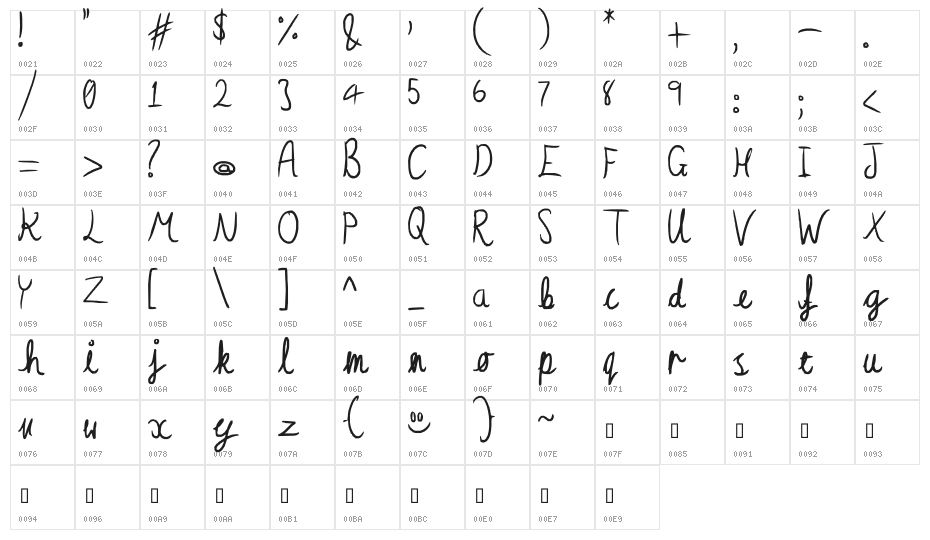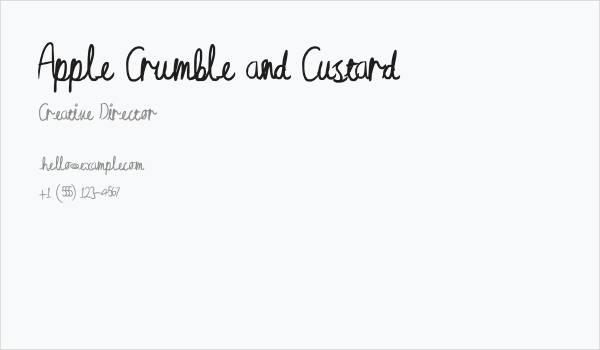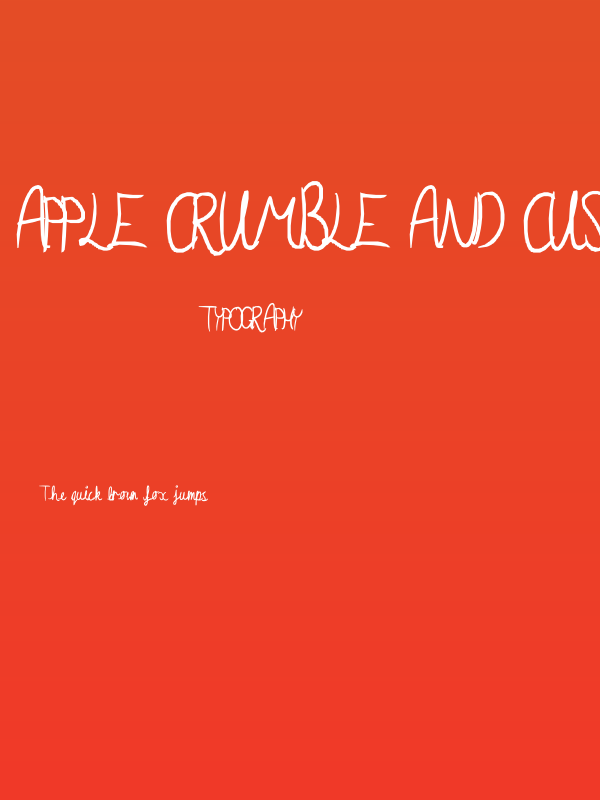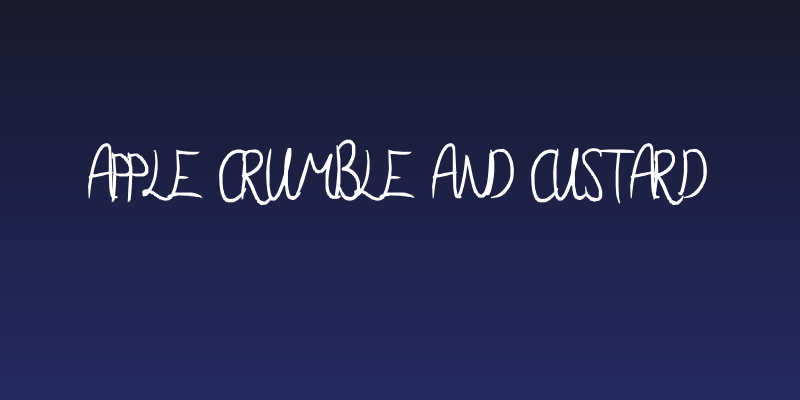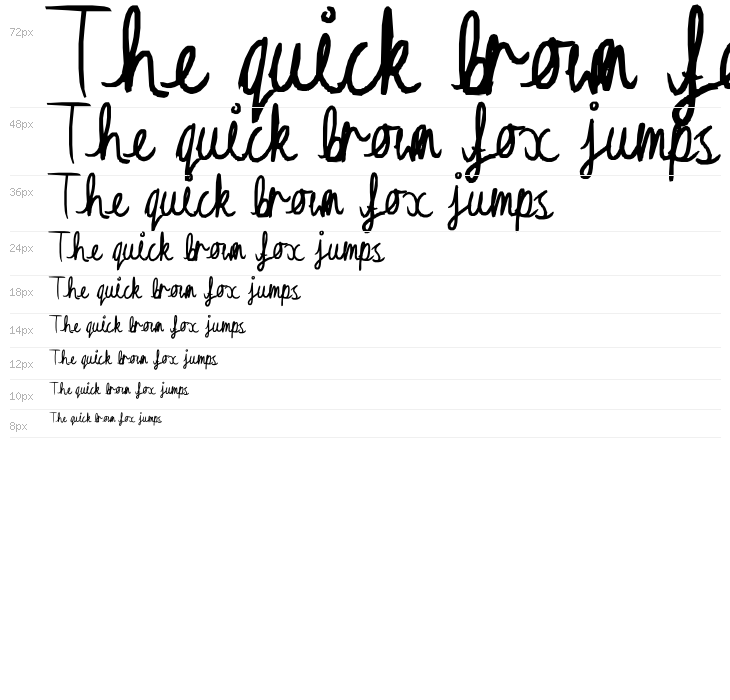
Apple Crumble and Custard Font
Apple Crumble and Custard Description
This font features a playful and casual handwritten style, characterized by its loose and flowing letterforms. The uppercase letters are tall and slightly irregular, giving a sense of spontaneity and creativity. The lowercase letters maintain a consistent flow, with some characters like 'g' and 'y' having distinctive loops that add to the font's charm. Numbers are clear and legible, while special characters are integrated seamlessly, maintaining the overall aesthetic. The font's informal nature makes it ideal for projects that require a personal touch.